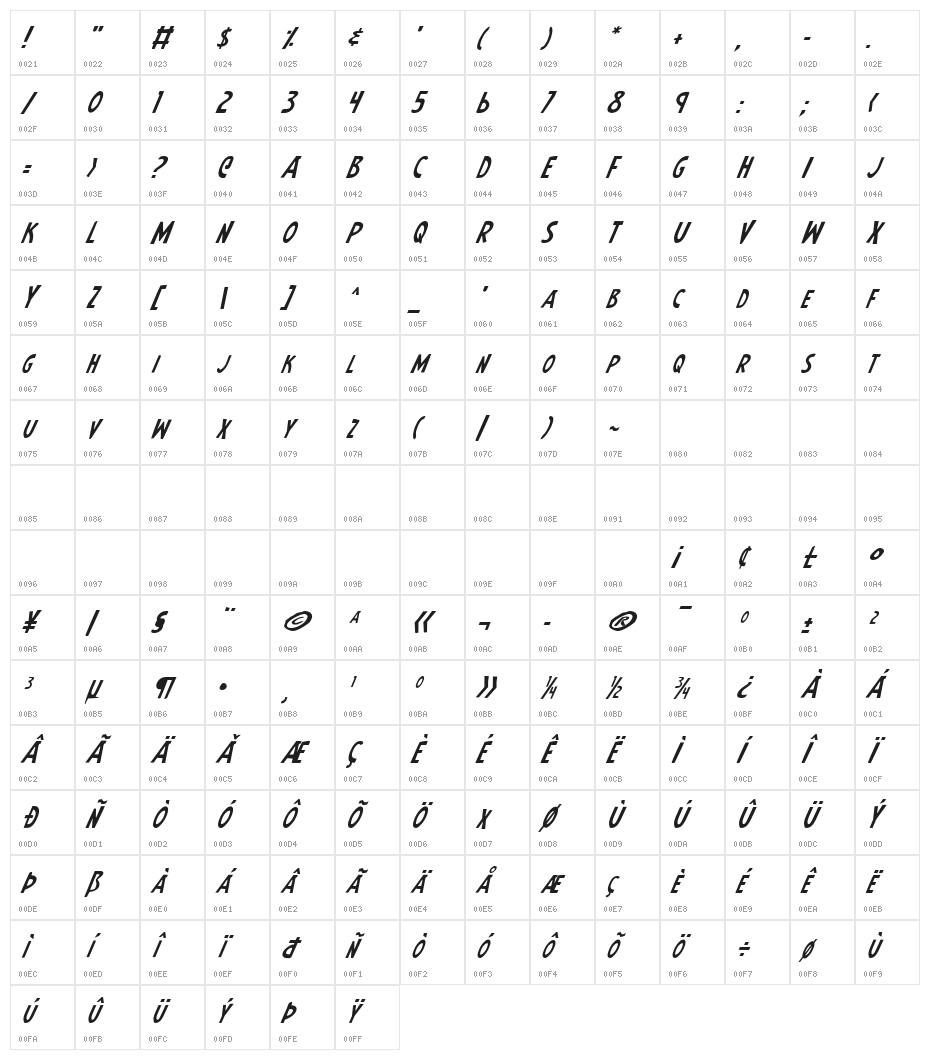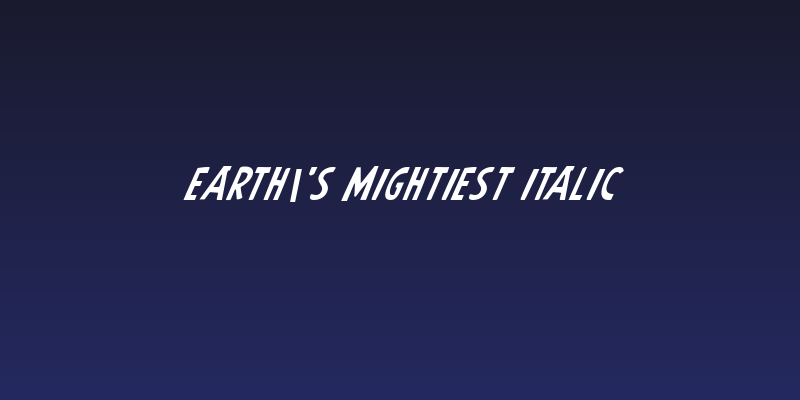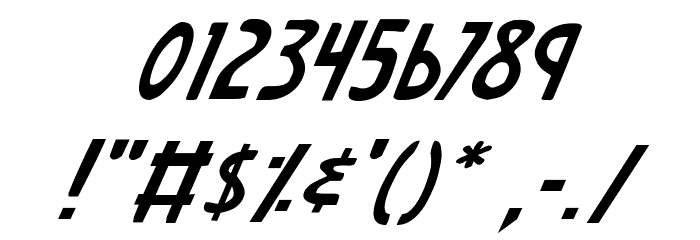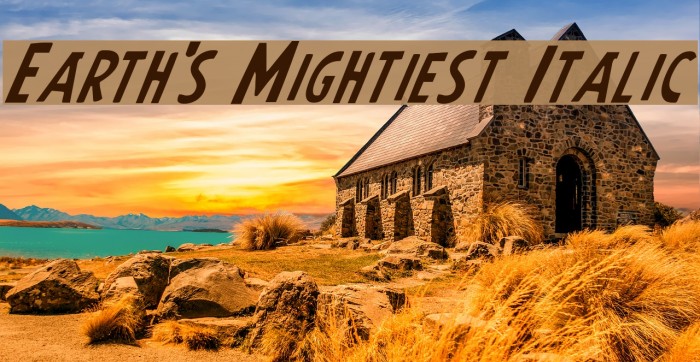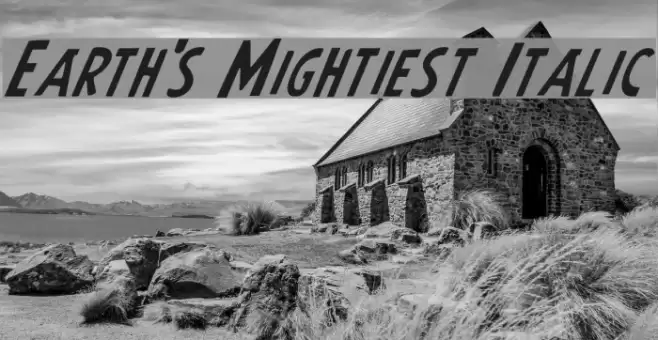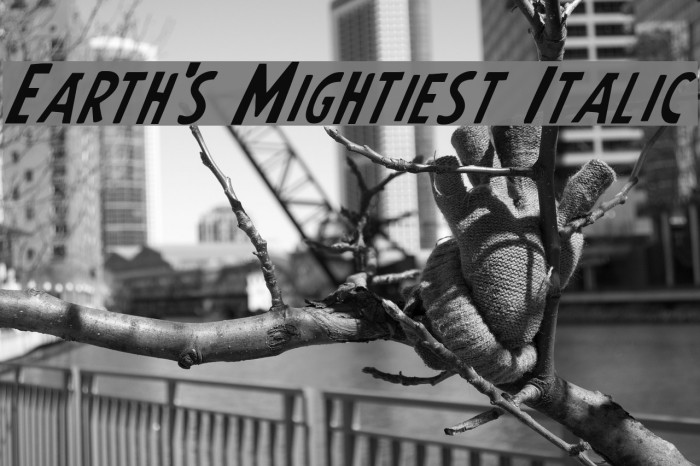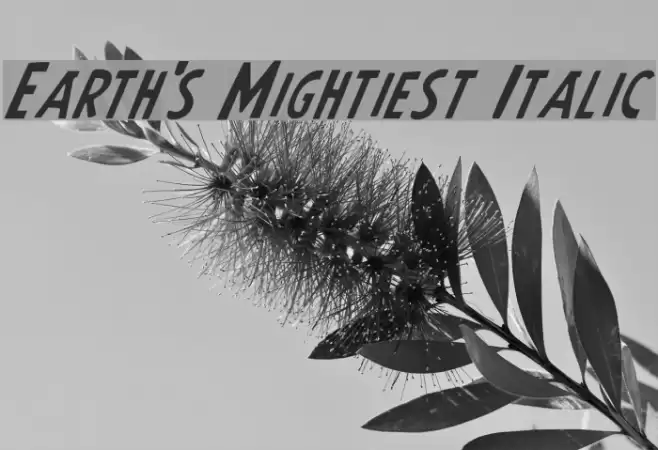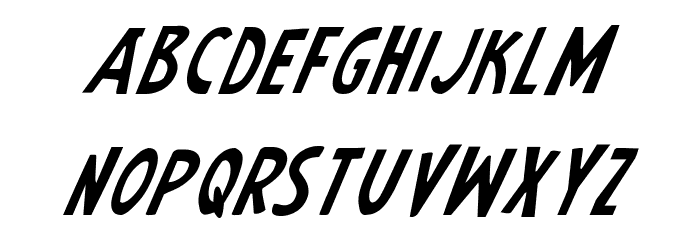
Earth's Mightiest Italic Font
Earth's Mightiest Italic Description
This font features a bold and dynamic italic style, characterized by its strong diagonal emphasis and sharp, angular lines. The uppercase and lowercase letters are designed with a consistent slant, giving the typeface a sense of motion and energy. The numerals and special characters maintain this dynamic quality, ensuring a cohesive look across all text elements. The boldness of the strokes is complemented by a medium contrast, allowing for clear readability while maintaining a striking visual impact. This font is well-suited for projects that require a sense of urgency or action, such as posters, headlines, and branding materials.
| Proposed Projects | Ideal for posters, headlines, branding, and any project needing a dynamic, energetic typeface. |